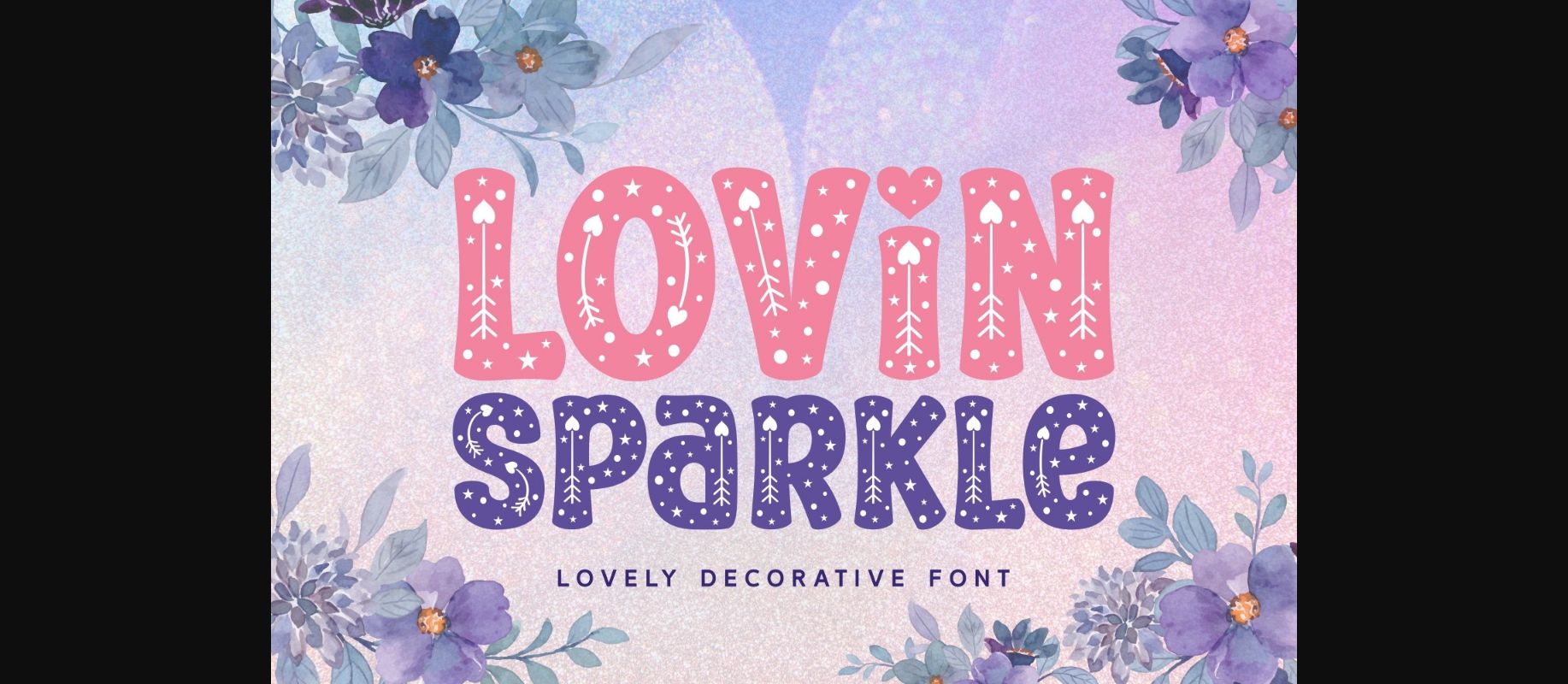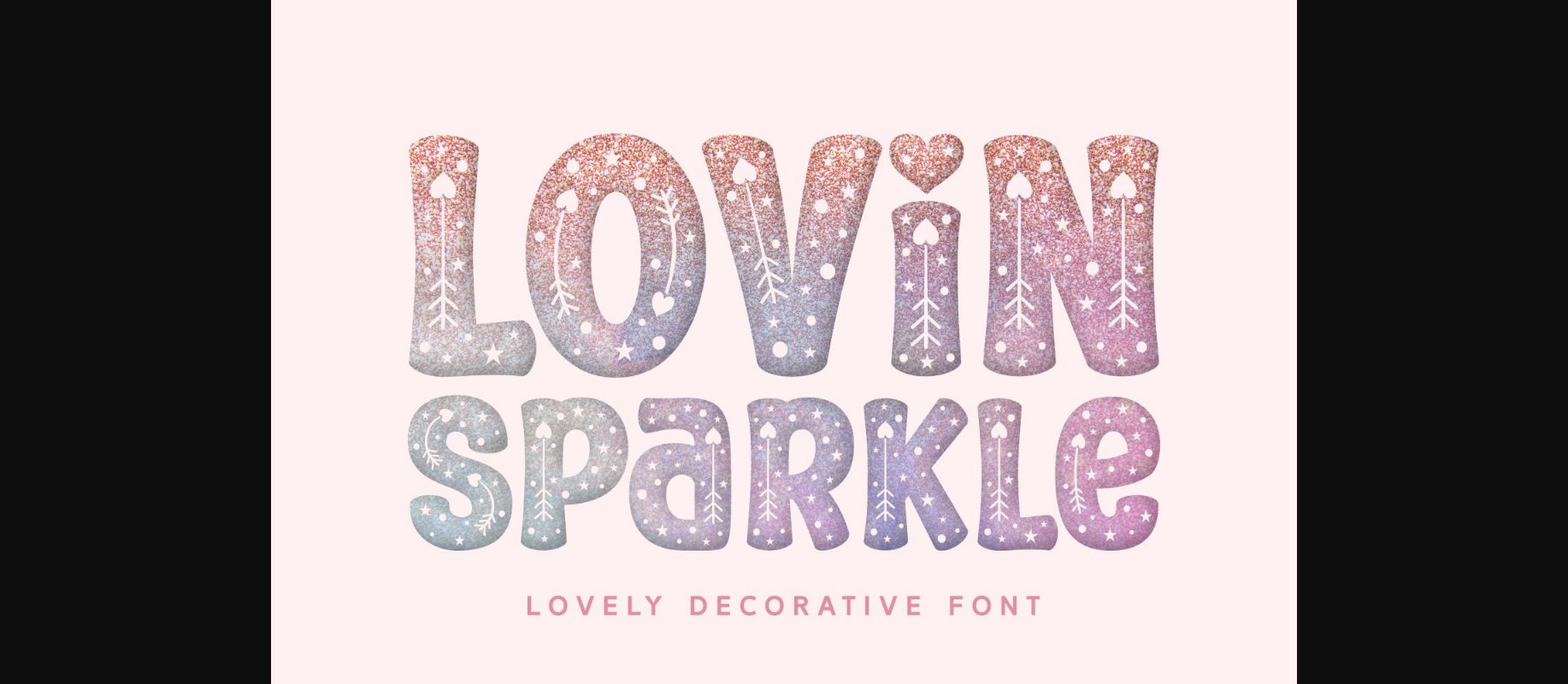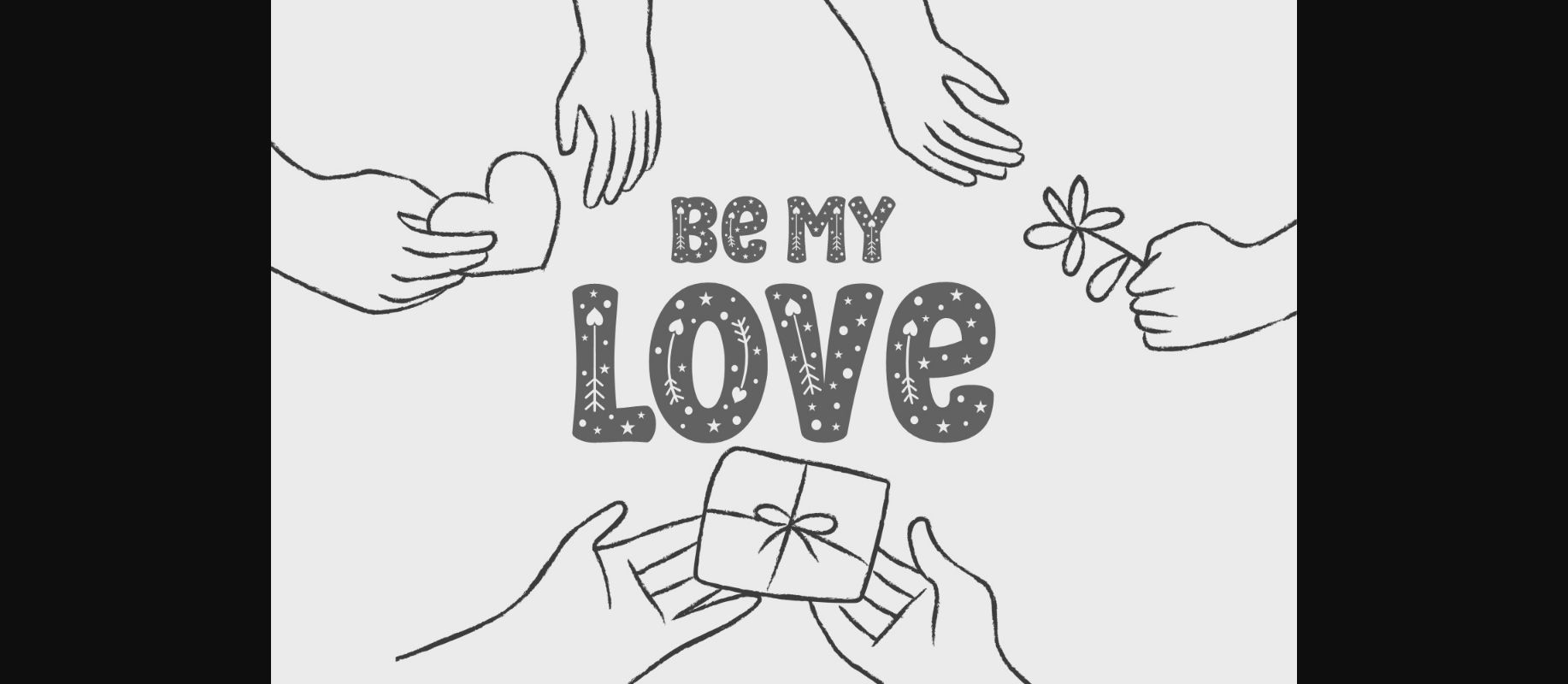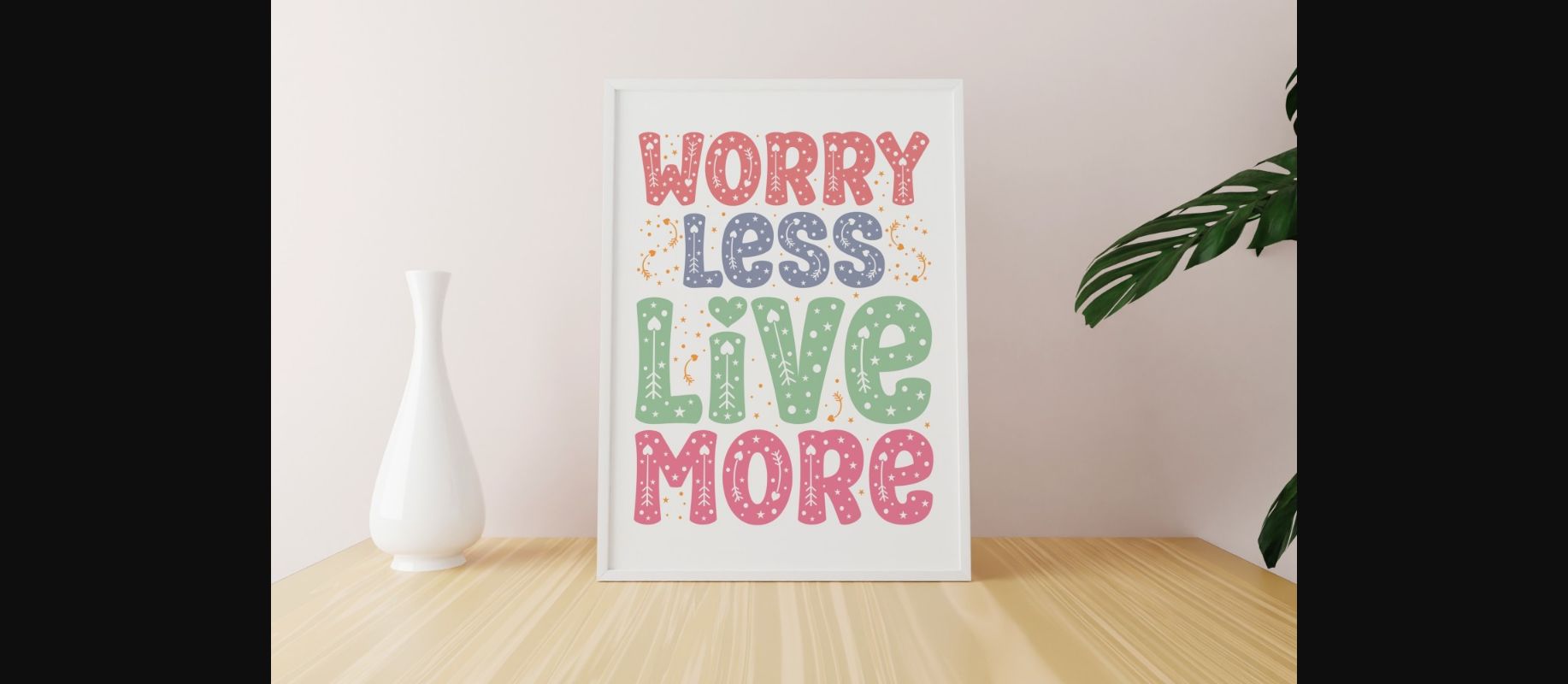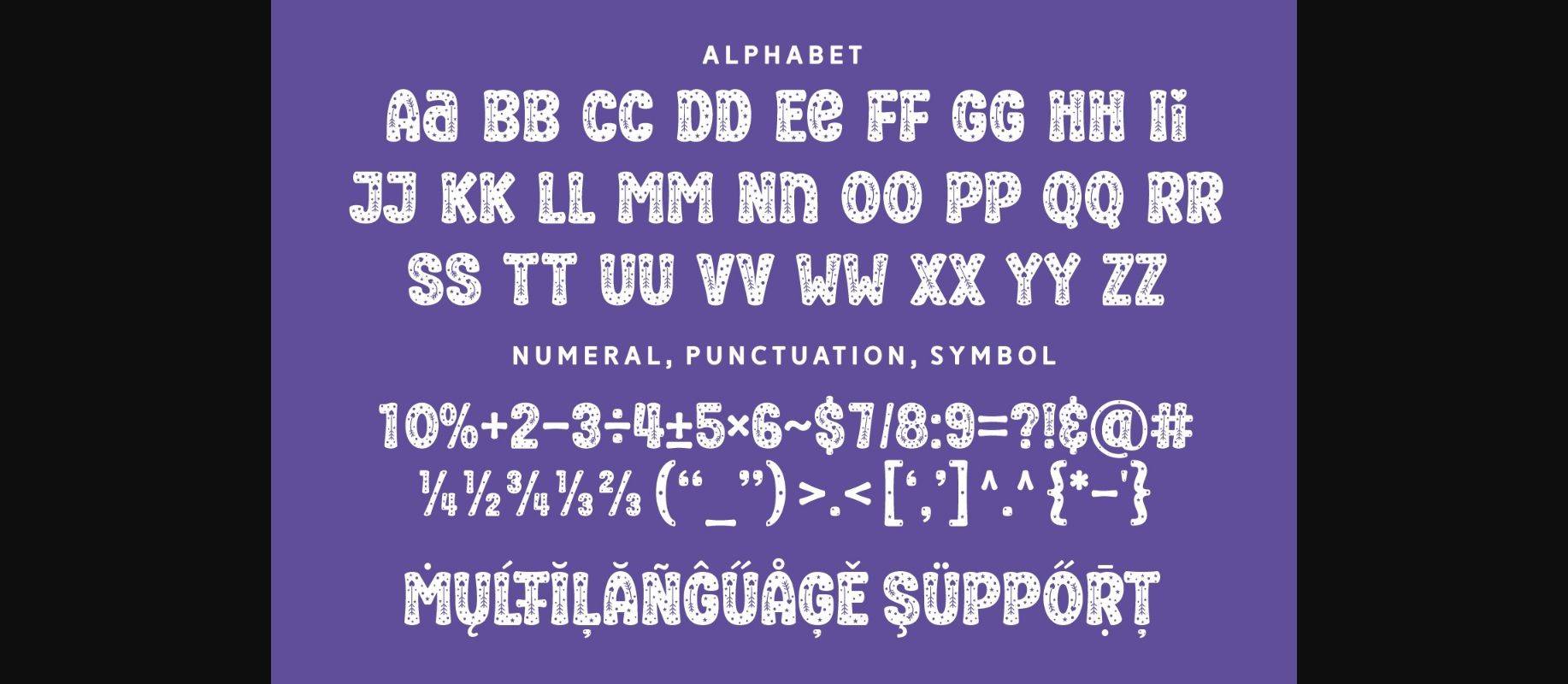
HomeDecorative FontsLovin Sparkle Font Decorative Fonts Lovin Sparkle Font FacebookXPinterestWhatsApp 1 of 7 ... Lovin Sparkle Font Poster 2... Lovin Sparkle Font Poster 3... Lovin Sparkle Font Poster 4... Lovin Sparkle Font Poster 5... Lovin Sparkle Font Poster 6... Lovin Sparkle Font Poster 7... About Lovin Sparkle Font The Lovin Sparkle font will be sure to enhance your next craft or design project from Valentine’s Day and beyond! This font features unique design elements in each glyph simulating a sparkle effect. DOWNLOAD NOW People also explored Wantemar Font Autices Font Lambe Doer Font Single Brand Font Aliving Font Billion Font Written Font Fridey Font Lovesurely Font 391 0 TagsLovin Sparkle Font Previous articlePaw Cad FontNext articleConcentric Circle Pattern Font LEAVE A REPLY Cancel reply Comment: Please enter your comment! Name:* Please enter your name here Email:* You have entered an incorrect email address! Please enter your email address here Website: Save my name, email, and website in this browser for the next time I comment. Personal Use Free Colourbars Personal Use Free Read more about this font Cottage Personal Use Free Read more about this font Dolce Vita Personal Use Free Read more about this font Ancient Script Personal Use Free Read more about this font BLOG Fonts That Capture the Spirit of New York City New York City is more than just a place—it’s an experience, a rhythm, a visual language... Free Fonts Risk: Why Free Fonts Can Be Dangerous for Designers Free vs Paid Fonts: Why Investing in Premium Fonts Is Worth It The 10 Best Handwriting Fonts to Add Personality to Your Designs